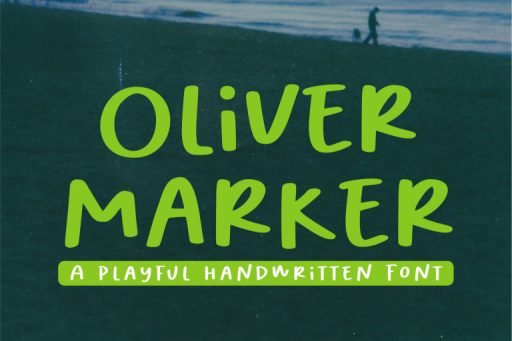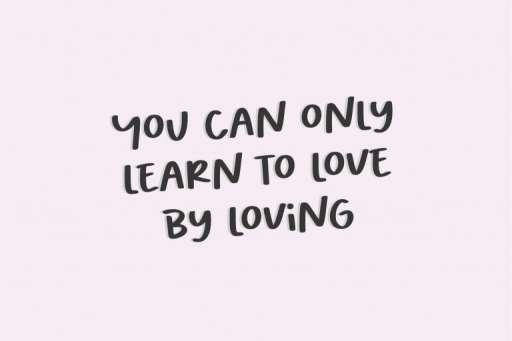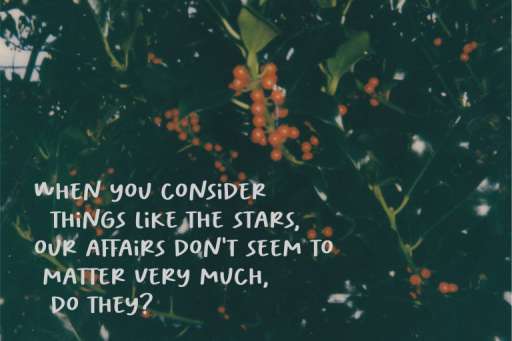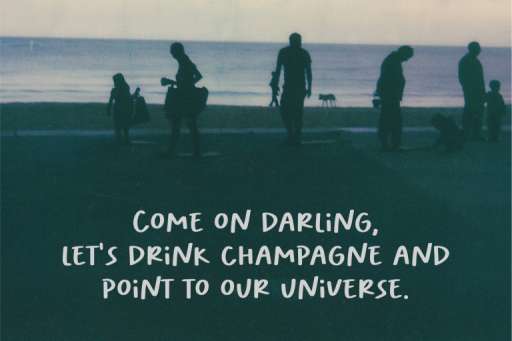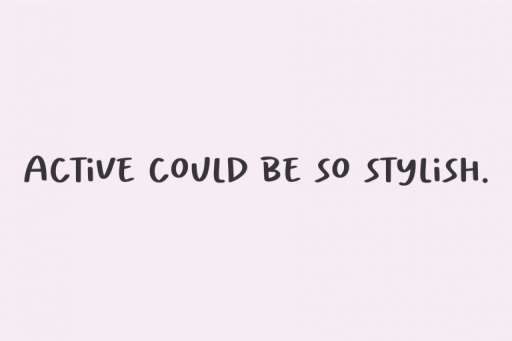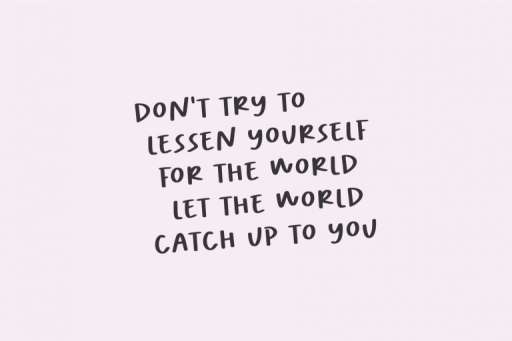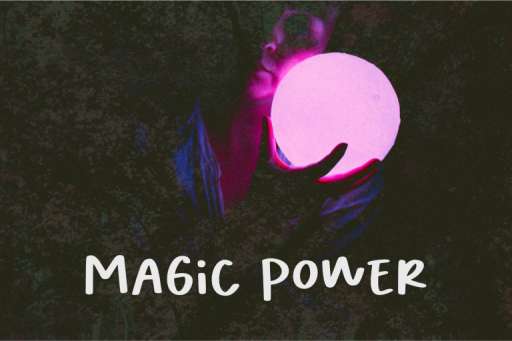
Oliver Marker - Handwriting Logo Font From Jimtype Studio
Oliver Marker Font
Oliver Marker – Marker Handwritten Font from Jimtype Studio
Oliver Marker playful handwritten font. It features an incredibly handwritten style, while still keeping a casual vibe. This font is suitable to use for a quote, product designs, labels, watermarks, social media posts, signboards, or anything that needs handwritten marker taste.